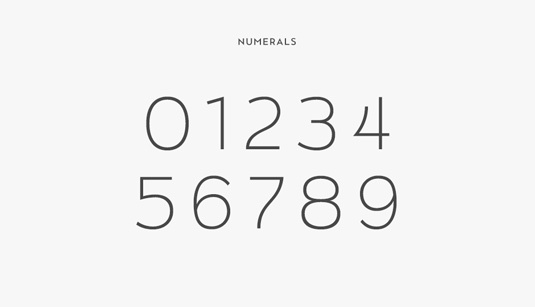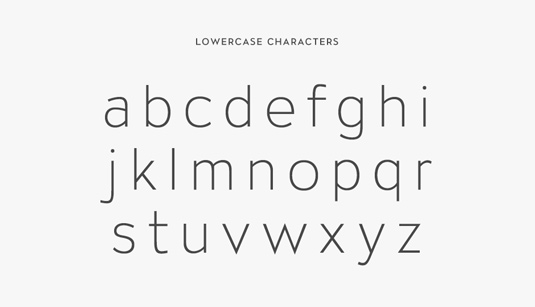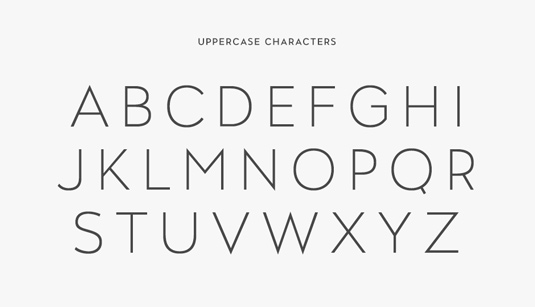
Font of the day: ATC Overlook
ATC Overlook by Alex Sheyn
Today's font of choice, ATC Overlook, was created by art director and designer Alex Sheyn. Created for Avondale Type Co, the foundry that Sheyn helps to run, and also available from Ten Dollar Fonts, the typeface is described as 'a geometric and grotesque fusion, sans-serif font family comprised of over 370+ glyphs in seven weights and 14 styles. ATC Overlook is a clean, versatile font with modern sensibilities and a dash of character'.